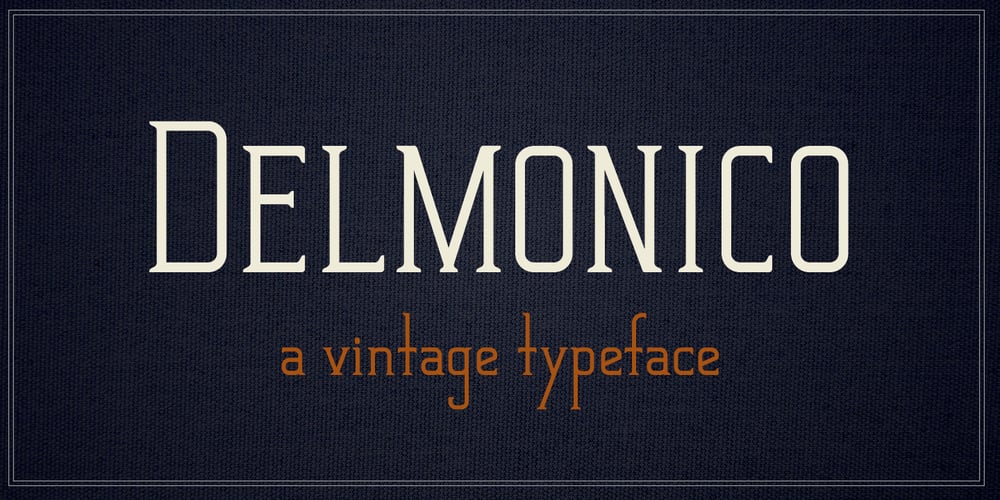
Delmonico Font Family was designed by Dathan Boardman, Ryan Lyse and published by Rocket Type. Delmonico contains 4 styles and family package options. Evoking a historical tone, Delmonico is a vintage display typeface featuring tall, condensed proportions just like its namesake chimney-style cocktail glass. This family includes uppercase, lowercase and small caps, as well as 22 stylistic alternate glyphs for distinctive expression.